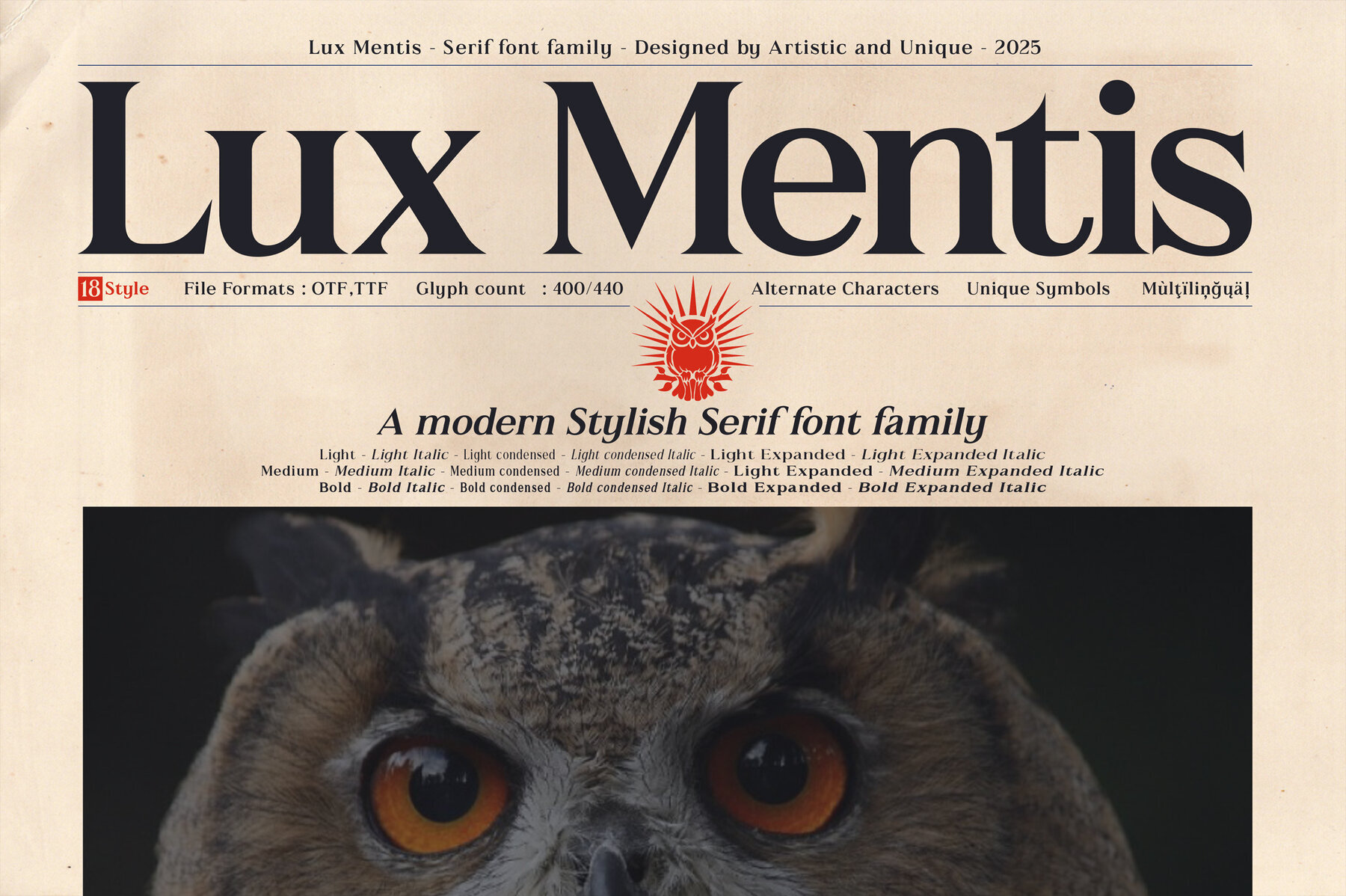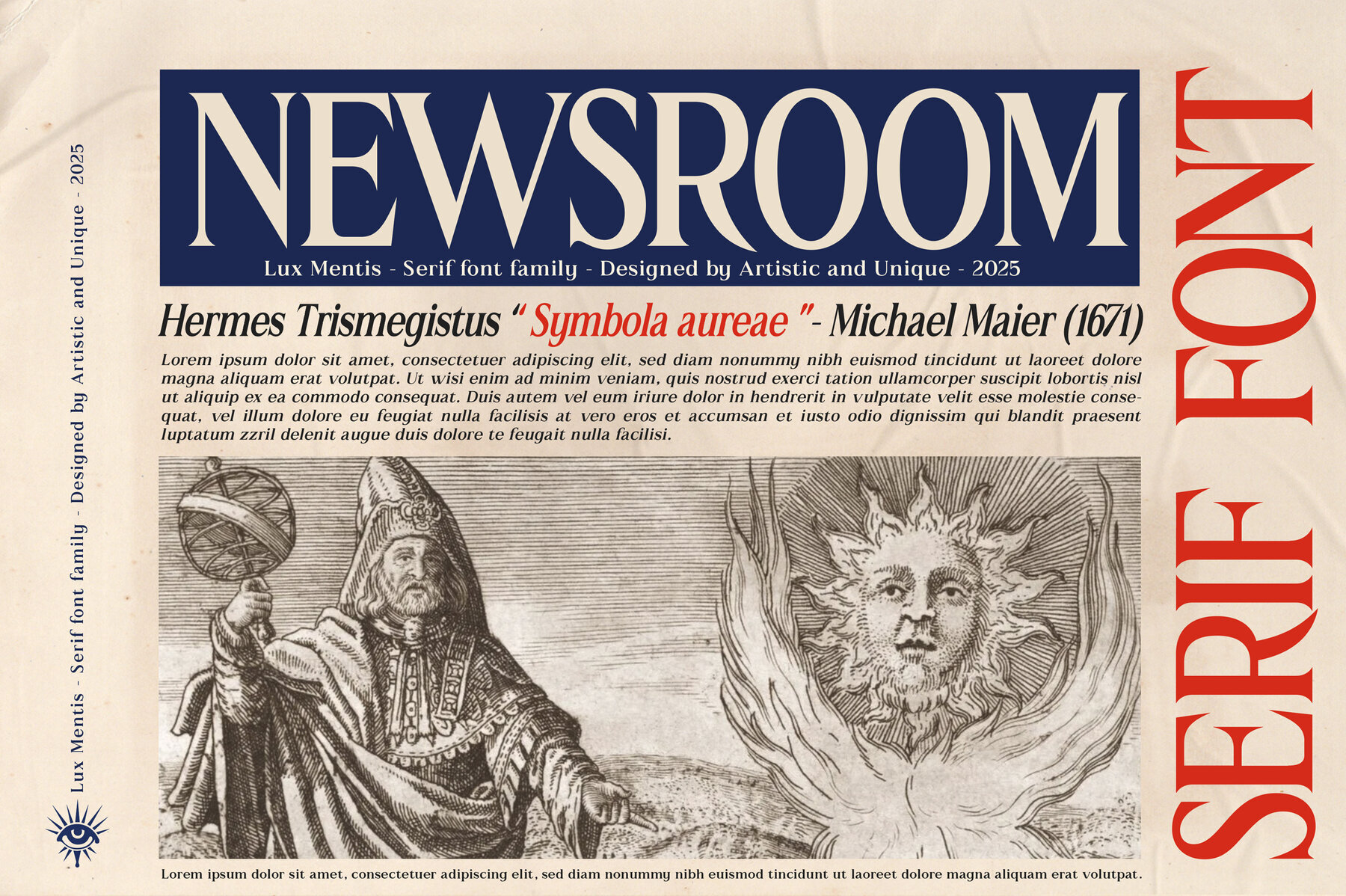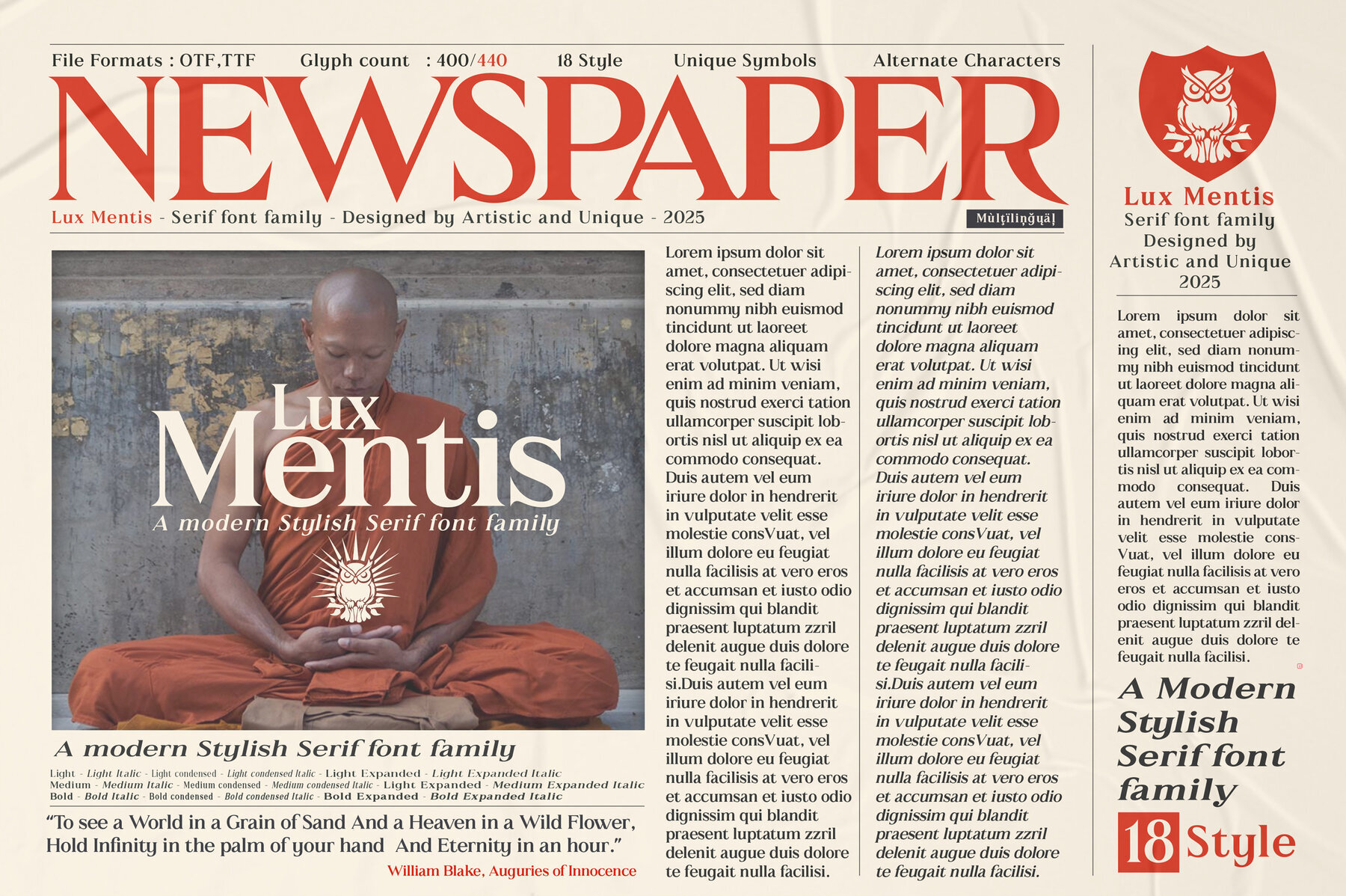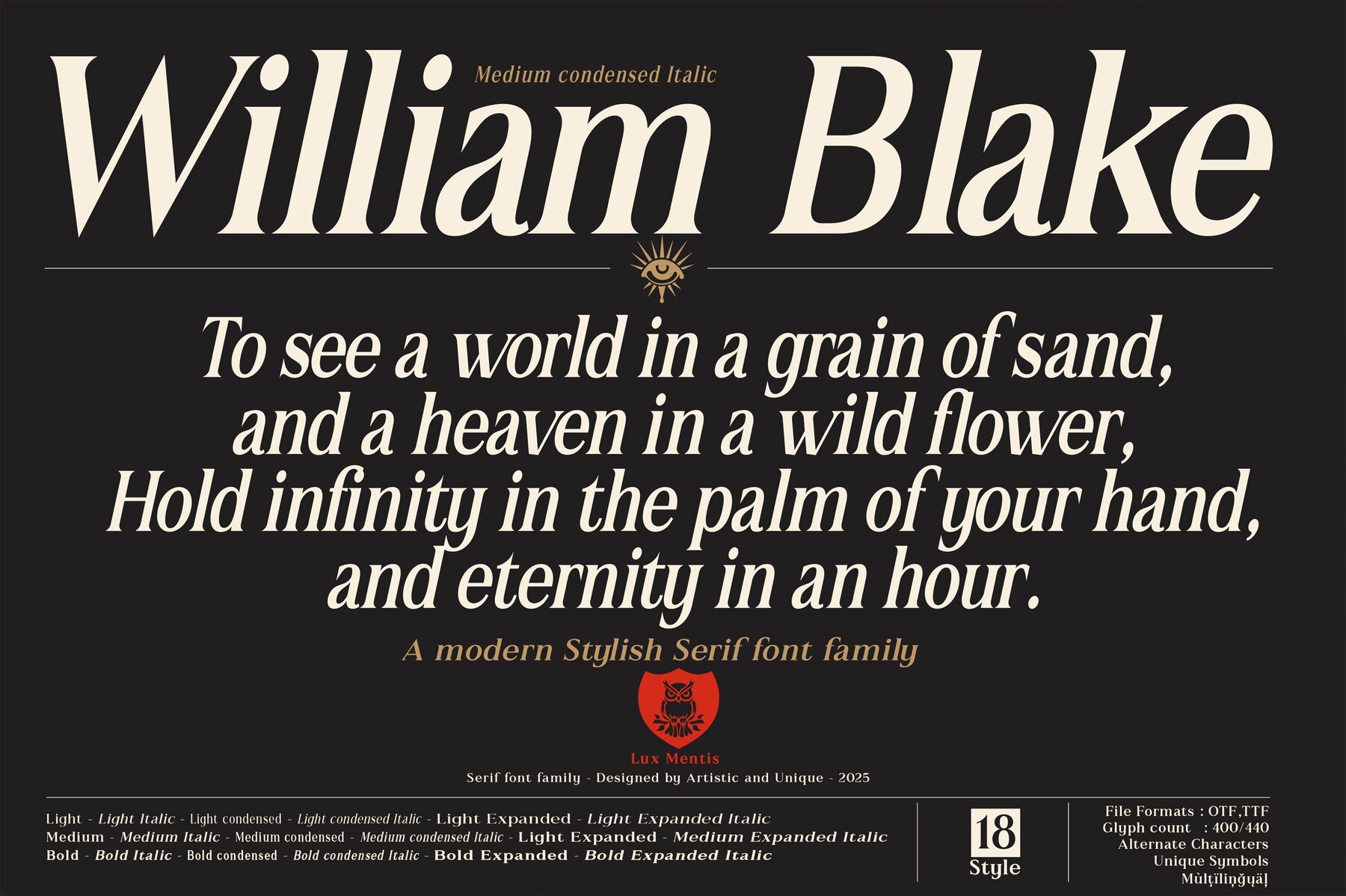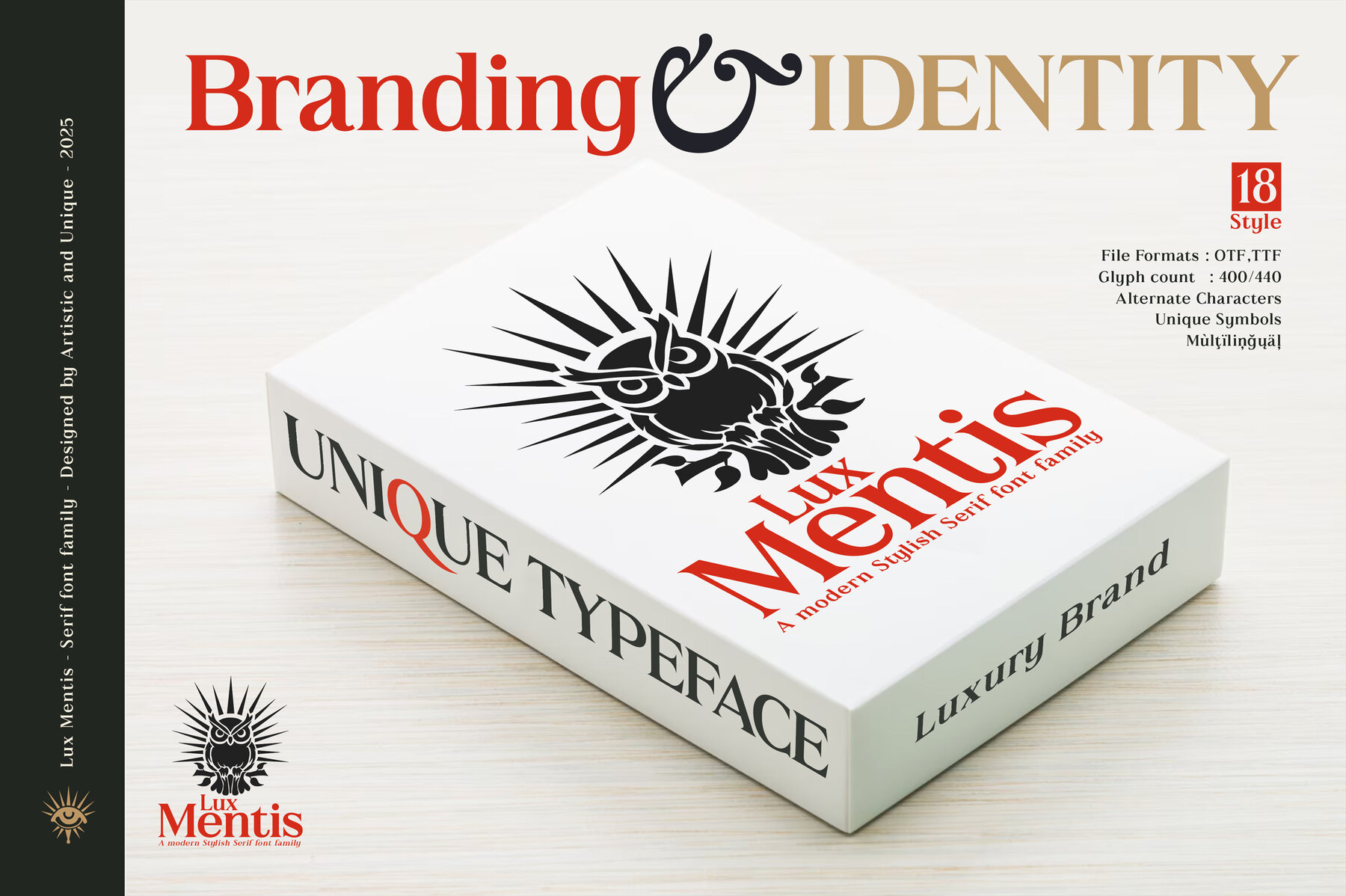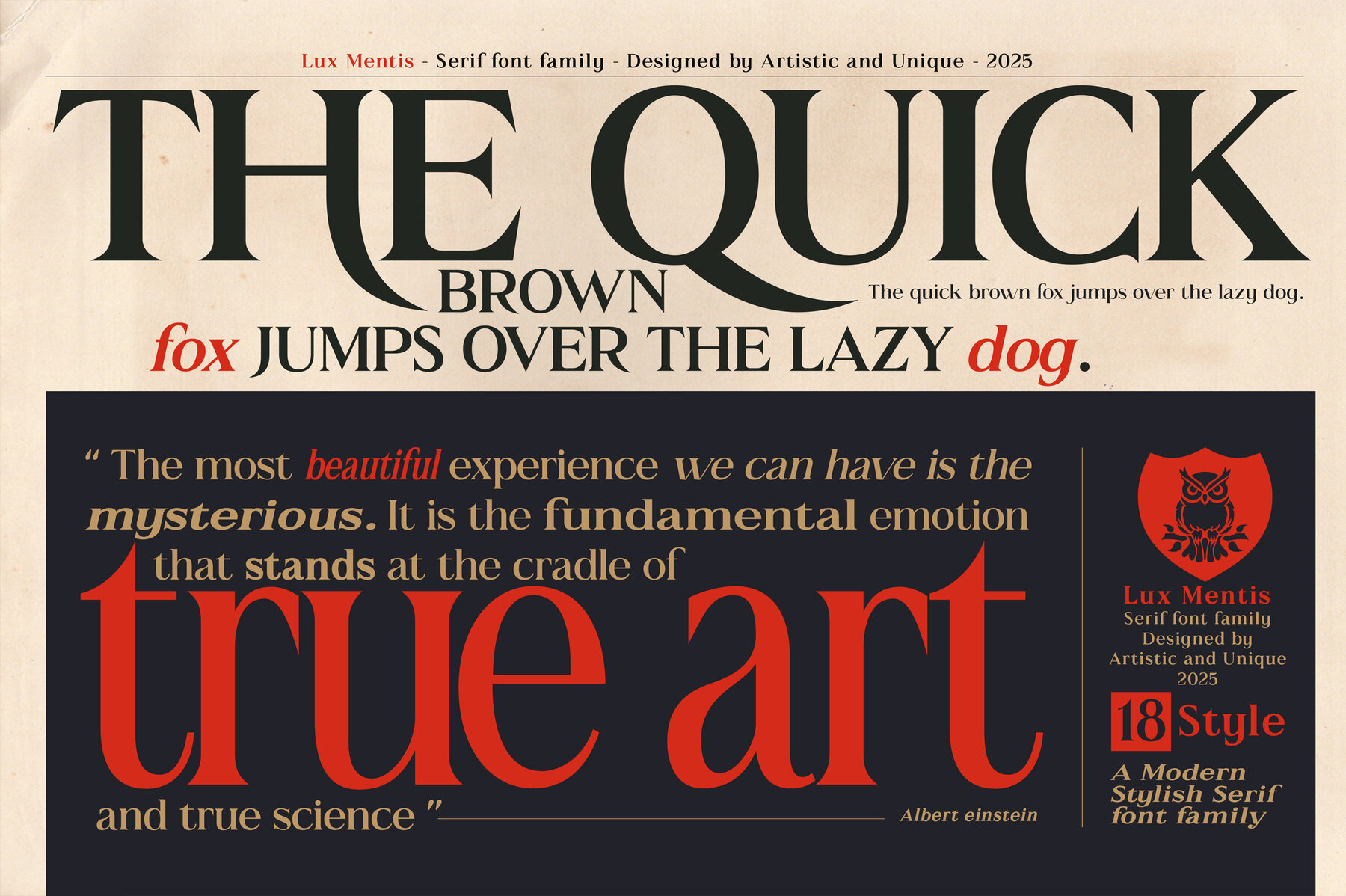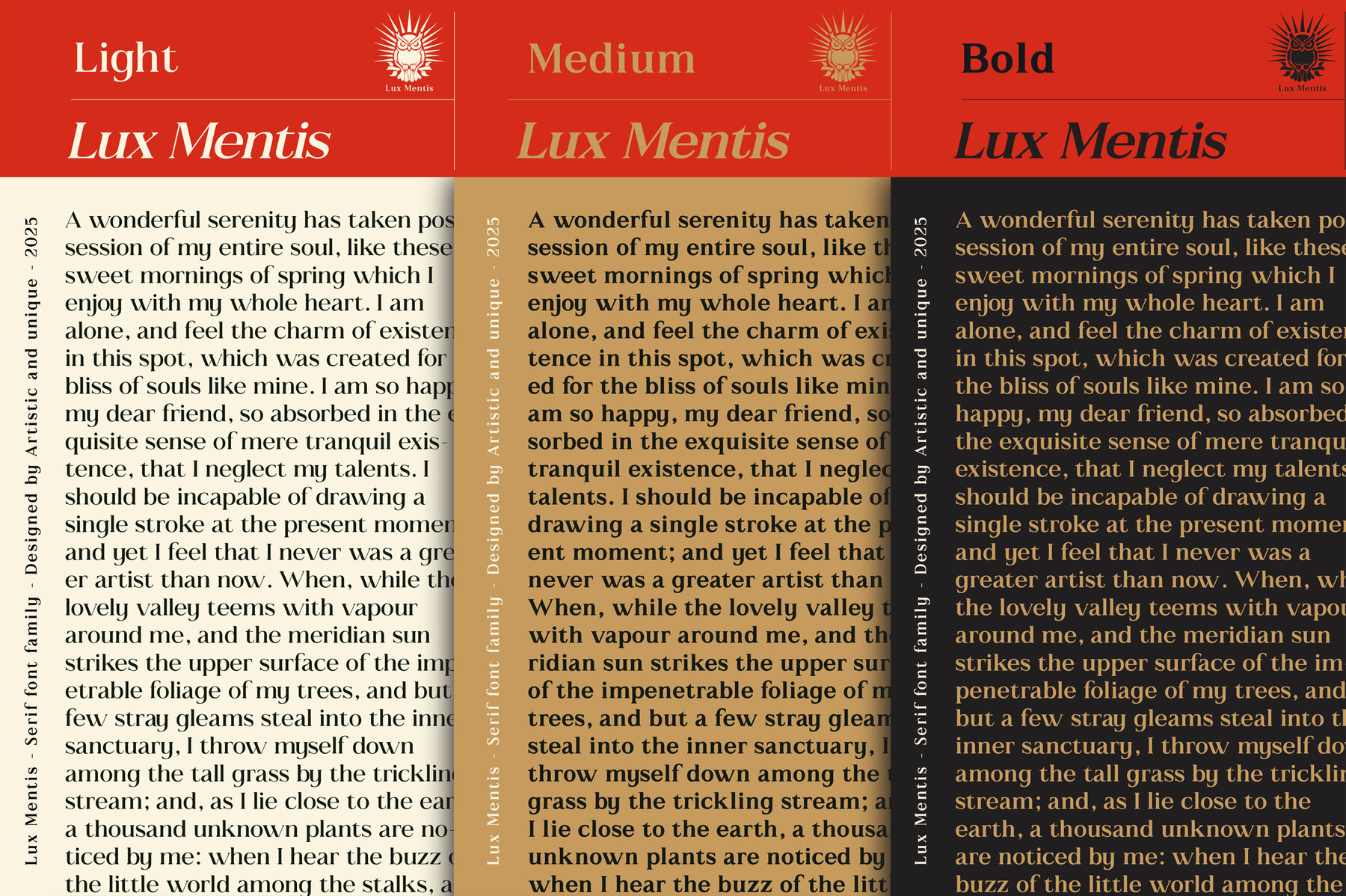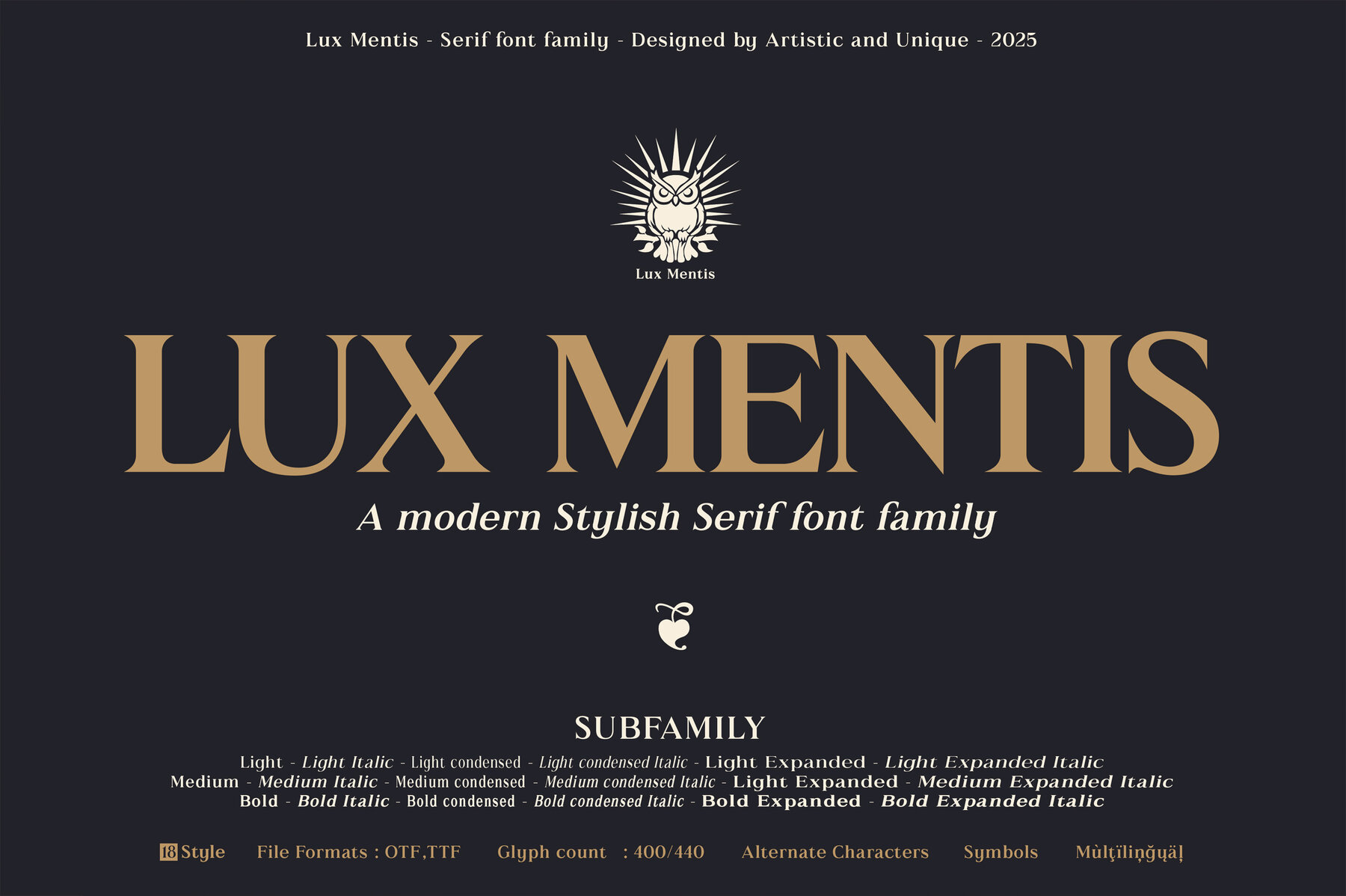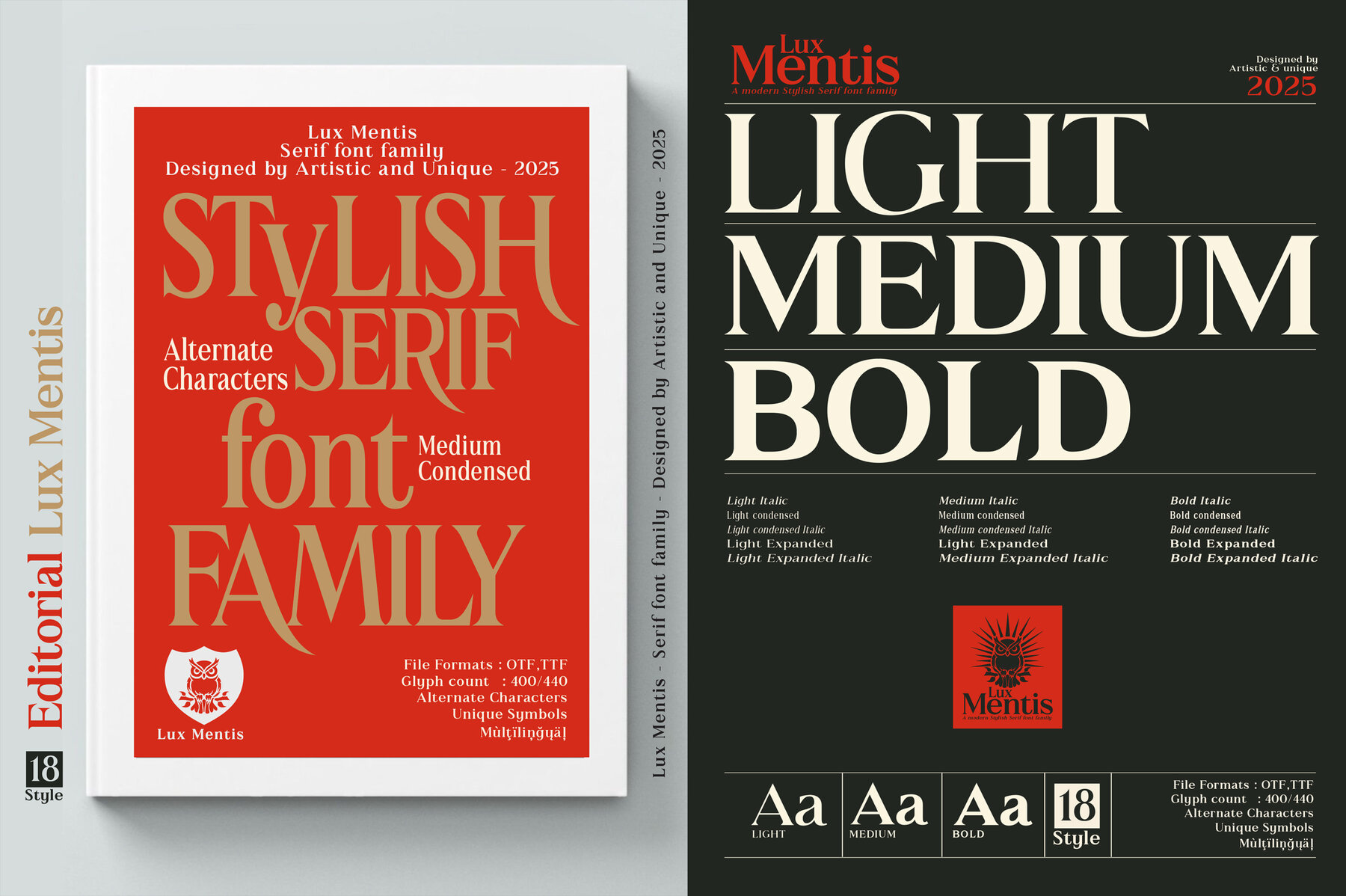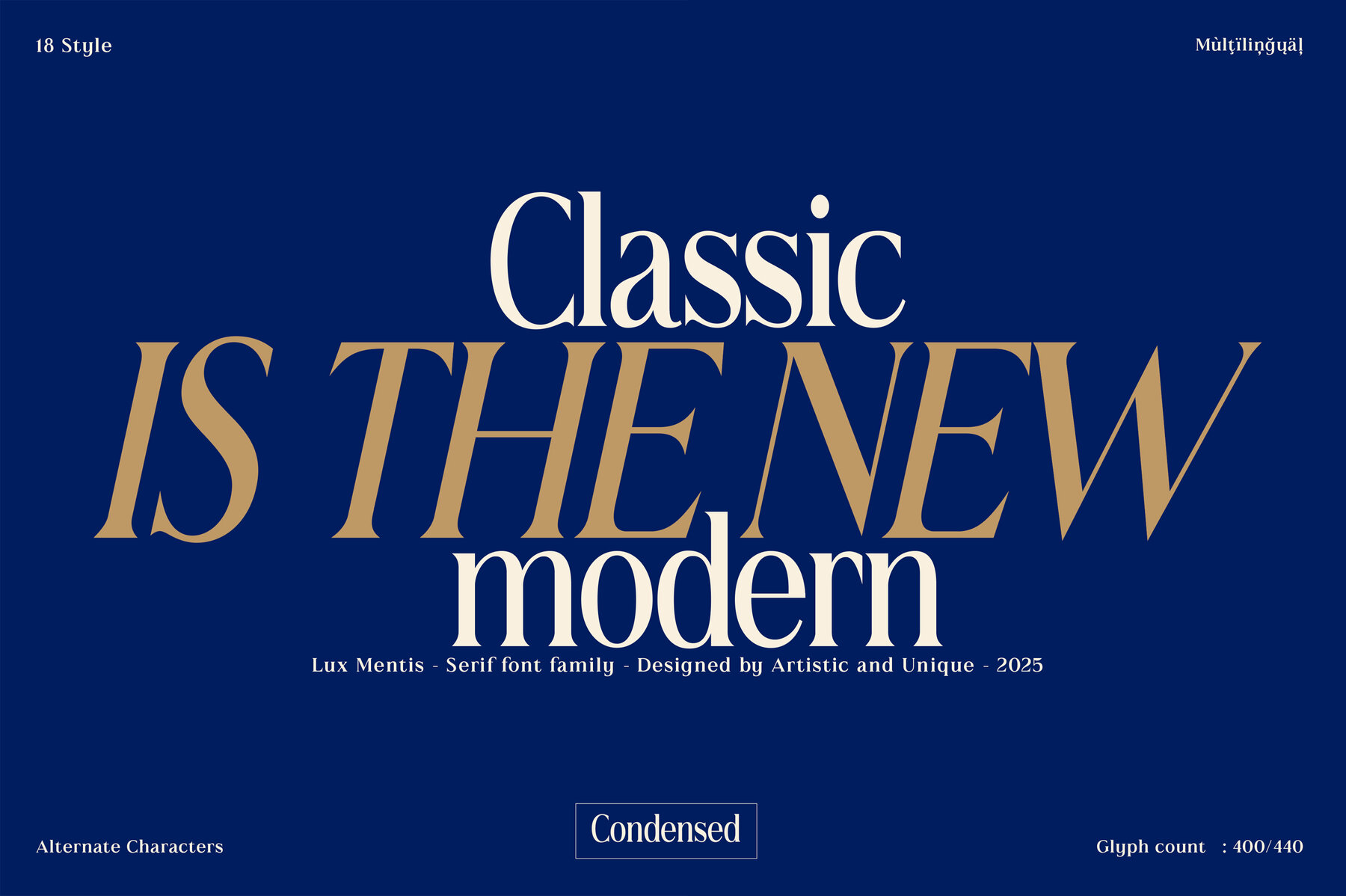
Lux Mentis Font
Lux Mentis embodies a timeless serif elegance enriched with contemporary touches, crafted to suit diverse design projects. This versatile font family presents a harmonious blend of traditional serif charm and modern glyph options, making it a stellar choice for striking headlines and refined body text. Its design, characterized by sharp corners and varying contrast, effortlessly bridges the gap between ornate and sophisticated aesthetics. Elevate your editorial pieces with Lux Mentis, offering high readability and an impactful presence both in print and digital formats. Its nostalgic appeal complements contemporary design, making it a valuable asset for branding, luxury packaging, and logo design.Lux Mentis: Classic Serif Font with Modern Flair
Lux Mentis is ideally suited for projects that demand a sophisticated touch. Its decorative flair and robust architecture promise a captivating impact in any application.